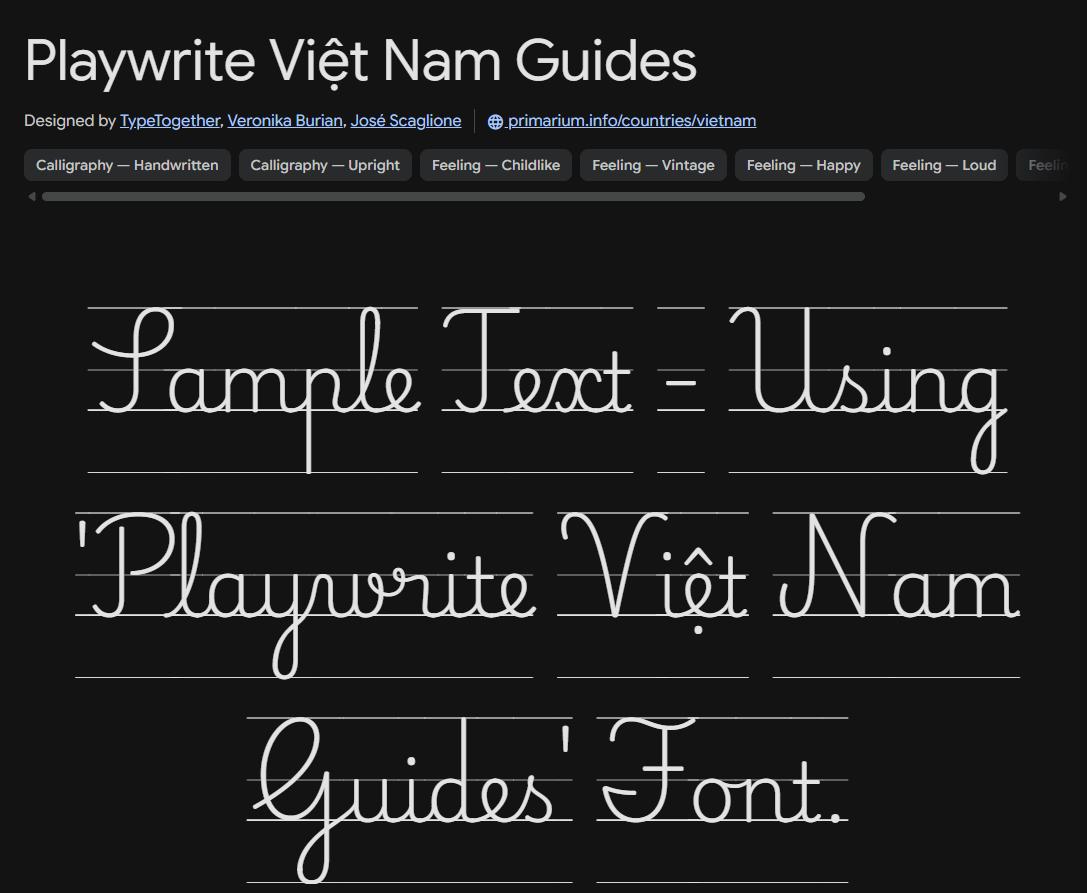
The Playwrite Việt Nam Guides typeface, a singular-style pedagogical masterpiece meticulously crafted by TypeTogether under the expert direction of Veronika Burian and José Scaglione, redefines the intersection of digital typography and manual literacy acquisition. By integrating structural ruling lines directly into the glyph architecture, this font serves as a sophisticated tool for mastering the nuanced stroke modulation and complex diacritic positioning inherent to the Vietnamese script. This release moves beyond mere character representation, utilizing precision-engineered OpenType features to maintain consistent x-heights and ascender ratios, thereby providing a standardized skeletal framework that bridges the gap between high-fidelity font engineering and the ergonomic requirements of primary handwriting education.
The Playwrite Việt Nam Guides typeface represents a sophisticated intersection of primary education pedagogy and digital typography, functioning as a Calligraphy-inspired tool that maintains an Upright, Handwritten architecture essential for early literacy development. Its characteristic style evokes a Childlike yet Happy sentiment, blending a Playful aesthetic with a distinct Vintage charm reminiscent of traditional Vietnamese school primers. Technically, the inclusion of integrated guiding lines-horizontal rules for ascenders and descenders-transforms the glyph set into a pedagogical framework that feels both Loud in its visual clarity and Rugged in its tactile, ink-on-paper authenticity. By prioritizing high-contrast legibility and precise diacritic placements within its OpenType structure, the font bridges the gap between traditional penmanship and modern screen-based learning, offering a semantic resonance that is both instructional and evocative.
Due to its specialized skeletal structure designed specifically for pedagogical tracing and primary literacy, Playwrite Việt Nam Guides is fundamentally unsuitable for high-density financial reporting or mission-critical data visualization where legibility at small optical sizes is paramount. The typeface, engineered by Veronika Burian and José Scaglione with integrated horizontal guides and specific Vietnamese cursive joins, introduces significant visual noise that disrupts the saccadic rhythm required for rapid scanning in legal contracts or medical labeling. While its monolinear weight and explicit baseline and ascender markers serve educational handwriting standards, these same features conflict with the typographic hierarchy and vertical metrics required for complex UI/UX environments, as the redundant pedagogical lines interfere with line-height calculations and severely decrease the signal-to-noise ratio in professional document processing.
Yes, this font family is specifically designed to accommodate the complex system of Vietnamese accents and tone marks used in handwriting education. By integrating specific glyph variants within the Latin Extended range, it ensures precise vertical positioning of stacked diacritics like the circumflex-acute combination.
The font is an ideal choice for primary education because it mimics the standard cursive letterforms taught in Vietnamese schools. Its design follows the official pedagogical standards for letter construction, utilizing specific x-height ratios that facilitate early motor skill development in young learners.
The integrated guide lines are part of the font's glyph structure, meaning they occupy space within the character's vertical bounding box. This necessitates an increase in the CSS line-height or leading values to prevent the overlapping of ascenders and descenders across consecutive rows of text.
It can be used for logos that aim to project a personal, educational, or authentic Vietnamese handwritten aesthetic. Designers should note that the fixed guide lines create a distinct grid-based visual rhythm, which may require manual kerning adjustments in vector software to balance optical white space.
Clean, geometric sans-serifs or modern serifs provide a stable contrast to the fluid and structured nature of this script font. Pairing it with a high-x-height typeface like Montserrat ensures optical harmony, especially when balancing the font's unique vertical metrics and rule-line presence.
While legible at medium sizes, the thin guide lines and delicate cursive strokes may become difficult to distinguish at very small scales. The thin stroke weight and high detail density suggest a minimum recommended size of 12pt to avoid ink spread blurring the internal horizontal rules on porous paper stocks.
The guide lines are a permanent part of the character outlines in the Guides version and cannot be toggled off within the font file itself. Users seeking a version without lines must switch to the standard Playwrite Việt Nam variable font axis, as the horizontal rules are baked into the glyph geometry of this specific variant.
It works well for headlines or decorative elements that need an authentic, nostalgic, or educational "schoolbook" vibe. On high-DPI screens, the repetitive horizontal guide lines can create a moiré-like visual texture, requiring careful color contrast management to maintain Web Content Accessibility Guidelines (WCAG) compliance.
The font scales beautifully for large-format printing, revealing the intricate details of its cursive paths and guide lines. Because it is delivered in a standard OpenType format, the stroke thickness maintains mathematical precision without pixelation, even when scaled to several meters in height.
It is generally not recommended for long-form body text due to the visual complexity and potential for cognitive load created by the guide lines. The font's primary utility lies in short instructional snippets, as the high frequency of horizontal lines can disrupt the saccadic movements required for rapid reading efficiency.